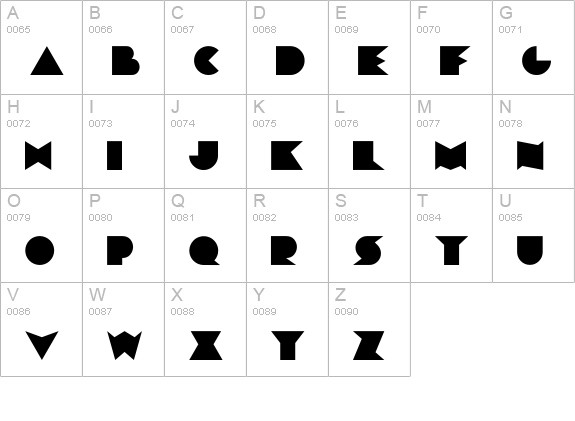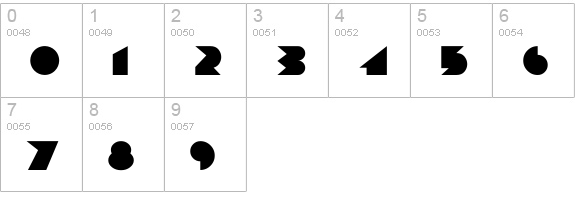
ChainsawGeometric Font Details
ChainsawGeometric font is a bold and edgy typeface that is perfect for making a statement with your designs. Its sharp lines and geometric shapes give it a modern and industrial look, making it ideal for projects that require a strong visual impact. This font is versatile and can be used for a variety of design projects, from logos and branding to posters and packaging. Its unique style is sure to grab attention and leave a lasting impression on your audience. Best of all, ChainsawGeometric font is available for free download at FontsMarket.com. So unleash your creativity and give your designs an extra edge with this eye-catching typeface.